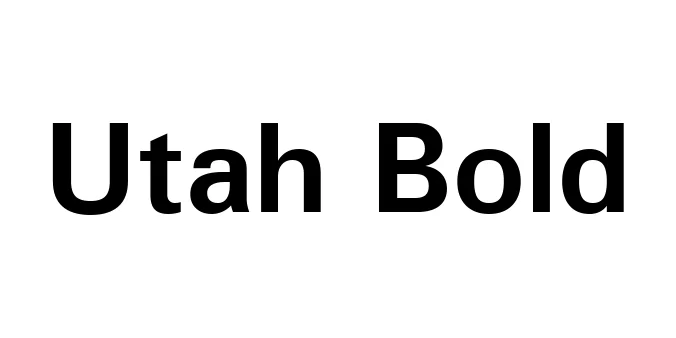
Utah Bold
Designed by Bitstream Inc.
Utah Bold is a prominent member of the Utah font family, which was famously developed by Bitstream Inc. as a high-quality alternative to the classic Frutiger typeface. This humanist sans-serif font is characterized by its open apertures and clear, distinct letterforms that ensure exceptional legibility even at smaller point sizes. Its design philosophy emphasizes a balance between structural geometry and organic curves, making it a versatile choice for both digital interfaces and traditional print media.
Throughout the years, Utah Bold has become a staple for designers seeking a professional and modern aesthetic without the high licensing costs of some heritage foundries. It is particularly effective in signage and corporate identities, where its robust weights and wide stance convey authority and clarity. Whether used for headlines or navigation elements, Utah Bold remains a reliable workhorse in the world of typography.
Utah Bold Best Uses
Perfect for creating authoritative and professional company identities.
Excellent for signage and directional displays due to high visibility.
Provides a clean and modern look for website headers and navigation bars.
Ideal for brochures, reports, and high-end magazine layouts.